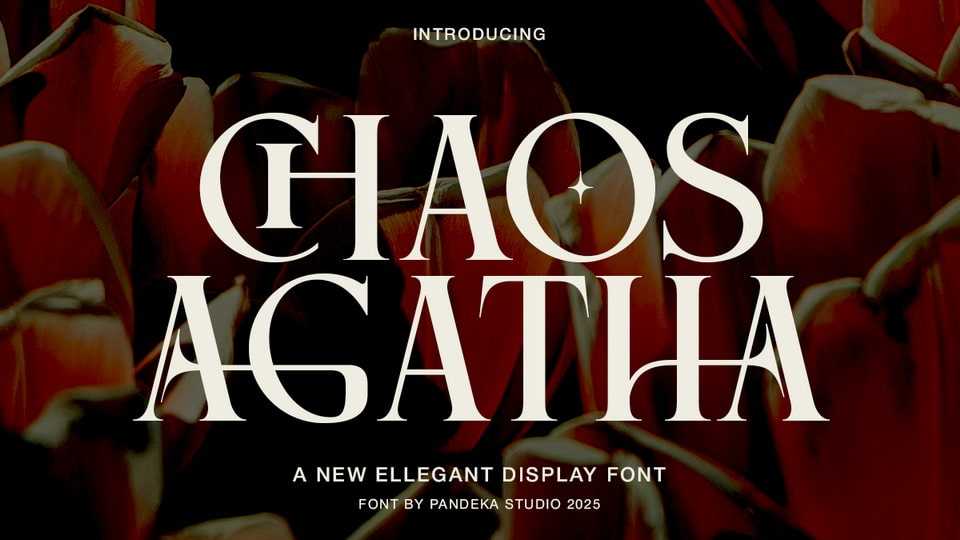
Download Chaos Agatha font, a sophisticated display serif with a bold character and timeless elegance. Designed for luxury branding, stylish lettering, high-end packaging.